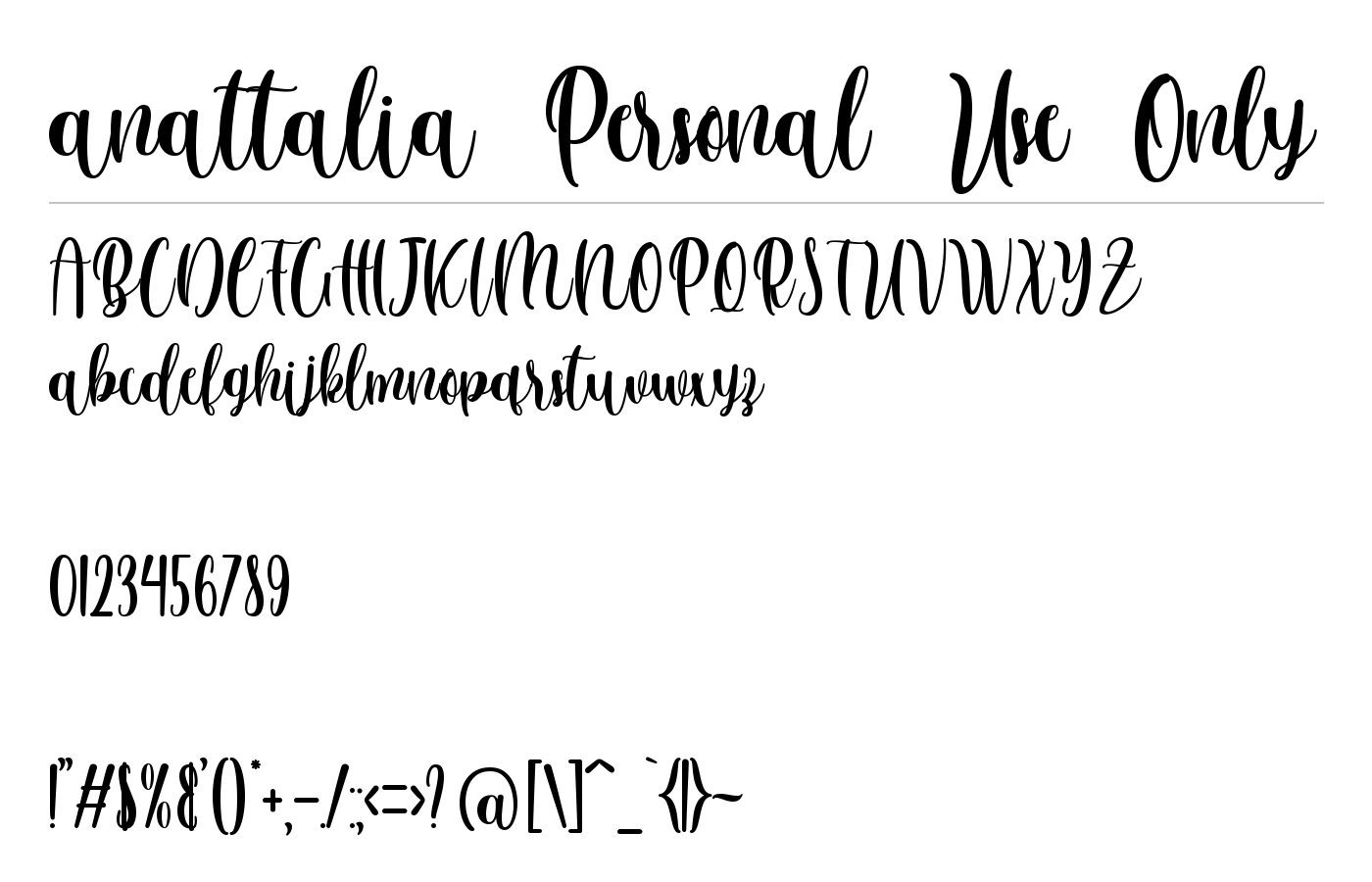
Anattalia is a stylish script font with a modern, handwritten feel that blends elegance with a touch of playfulness. Its smooth, flowing strokes and tall, narrow letterforms make it perfect for adding a personal and sophisticated touch to invitations, branding, and creative projects where charm and readability are key. This font works beautifully in headlines and decorative text, lending a warm, friendly personality to any design.
anattalia Personal Use Only Font
About anattalia Personal Use Only Font